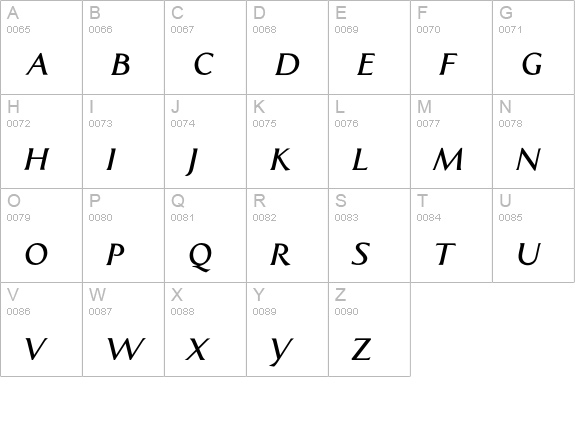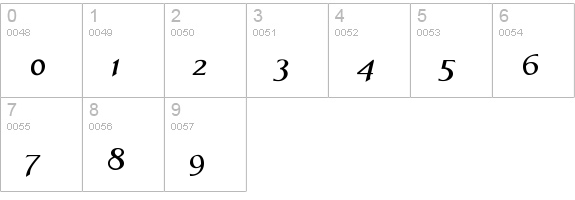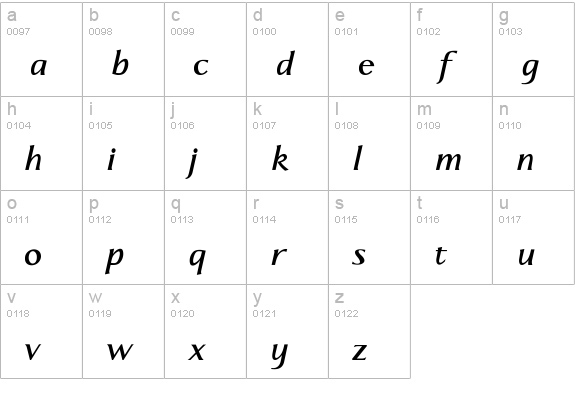
Aperto Bold Italic is a strong, high-contrast, italic variant in the Aperto typeface family \xE2\x80\x94 well suited to headlines, attention-grabbing titles, and strong calls-to-action.
Aperto Bold Italic font is a modern and versatile typeface that exudes elegance and sophistication. Its sleek and stylish design makes it perfect for a wide range of design projects, from branding to editorial design. The bold italic style adds a touch of flair and personality to any text, making it stand out and grab the reader's attention. The best part? Aperto Bold Italic font is available for free download at FontsMarket.com. This means you can easily access this stunning typeface without any cost, making it a valuable resource for designers and creatives looking to elevate their projects. Don't miss out on the opportunity to add Aperto Bold Italic font to your font collection and enhance your designs with its bold and dynamic presence.